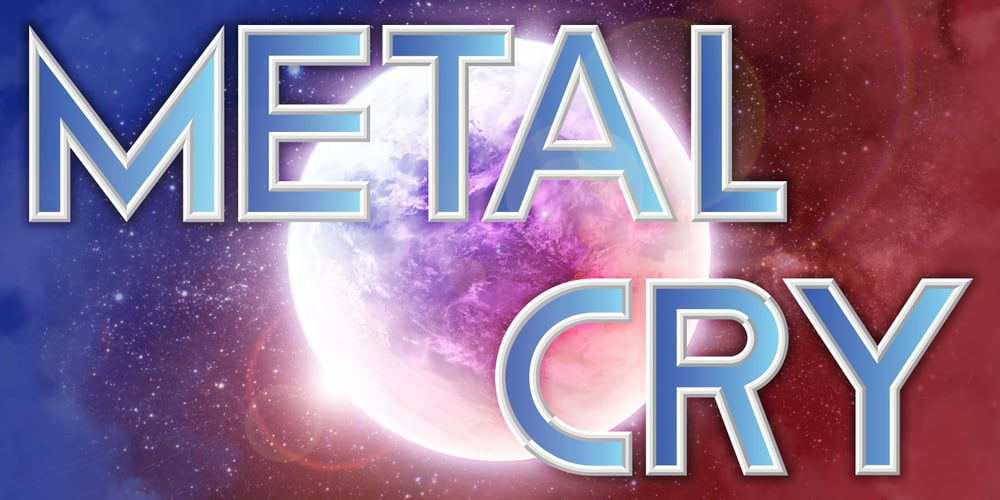
Metal Cry Font Family was designed by Fabrice Ducouret and published by Fabulous Rice. Metal Cry contains 4 styles and family package options. Metal Cry is a font family that was inspired by countless hours spent playing video games, watching old movies or reading comic books. And even more hours closely analysing the design of all these things. The art of creating beautiful letters has slowly declined with the rise of the digital age and its solid-colour, 2D fonts. And most of the time, the care given to typography in cultural products just isn’t what it used to be anymore. This was the inspiration for Metal Cry, a family of 4 layerable fonts that can bring a feeling of depth to its letters, and offers endless possible combinations. Metal Cry Outlands is the basic shape of all the characters, it can be used as the bright side of the bevel. Metal Cry Front is the inline border font that can be used as the front side of the bevel. Metal Cry Shadow can be used as the dark side of the bevel. Metal Cry Depth can be used to flash out the inside shape of the letter. But of course, any font can be combined with any other font(s) to obtain various results. The planets in the above visuals are courtesy of 3D artist Thomas Veyrat / veyratom.com